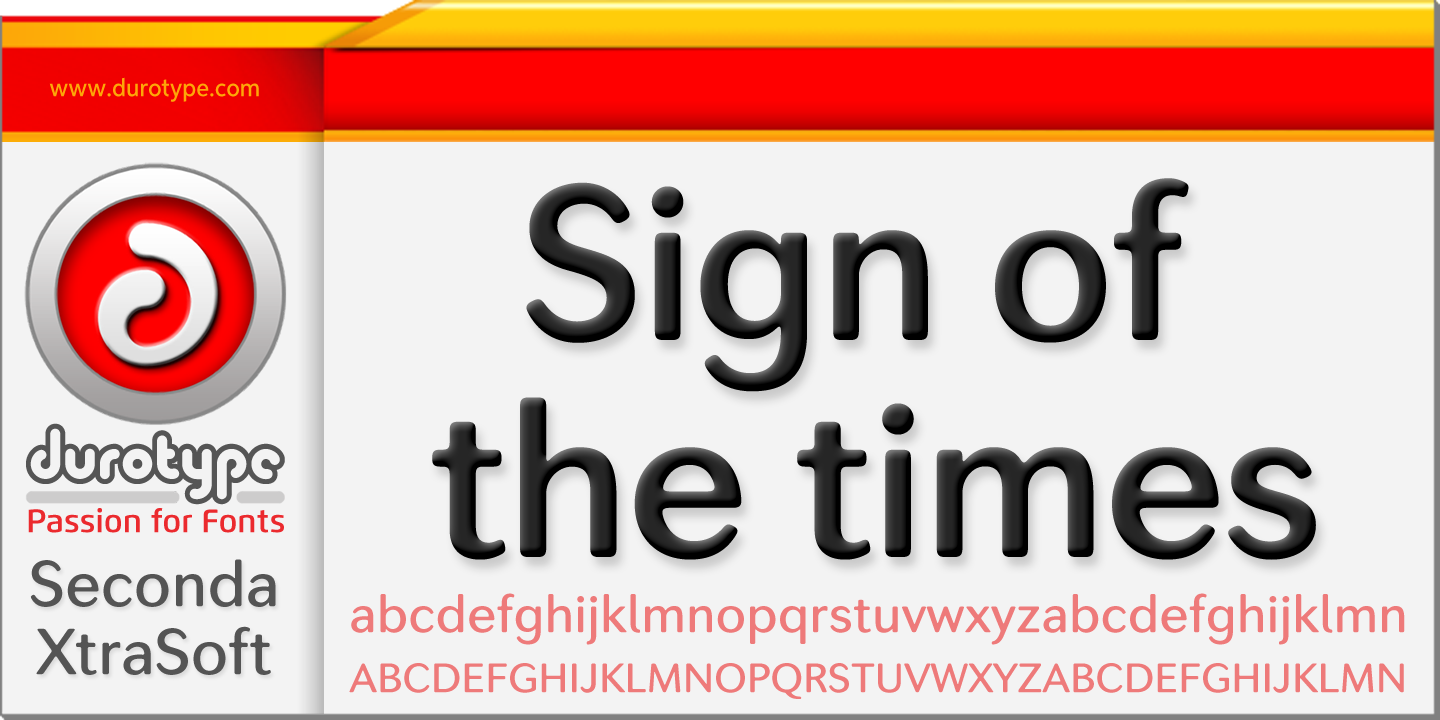
Seconda XtraSoft Font is perfect for wellness center branding, organic product packaging, gentle baby care labels, meditation app interfaces, spa and relaxation materials, soft fashion branding, comfort food packaging, peaceful healthcare design, nurturing childcare centers, and calming lifestyle publications.
What makes Seconda XtraSoft Font exciting is its exceptional softness and gentle elegance that creates an atmosphere of comfort, tranquility, and approachable sophistication. This beautifully crafted typeface features ultra-soft letterforms with rounded edges and flowing curves that evoke feelings of warmth, safety, and nurturing care. The font's tender character and soothing aesthetics make it perfect for brands seeking to convey compassion, comfort, and gentle professionalism in wellness and lifestyle industries.
The Seconda XtraSoft Font family includes gentle variations: XtraLight, Light, Regular, Medium, Bold, and Italic versions. Each style maintains the core soft aesthetic while providing different levels of visual weight and emphasis. The complete family offers designers comprehensive tools for creating comforting, approachable visual communications that make audiences feel welcomed, cared for, and emotionally connected.
When your project needs gentle sophistication and comforting appeal, Seconda XtraSoft Font Free Download is the perfect embrace. This tender typeface transforms communications into warm, nurturing experiences that resonate with audiences seeking comfort and authenticity. Its versatile softness makes it ideal for both intimate personal care brands and large-scale wellness applications. Download Seconda XtraSoft Font today and wrap your designs in gentle elegance with this remarkable typeface that perfectly captures softness, care, and approachable sophistication.